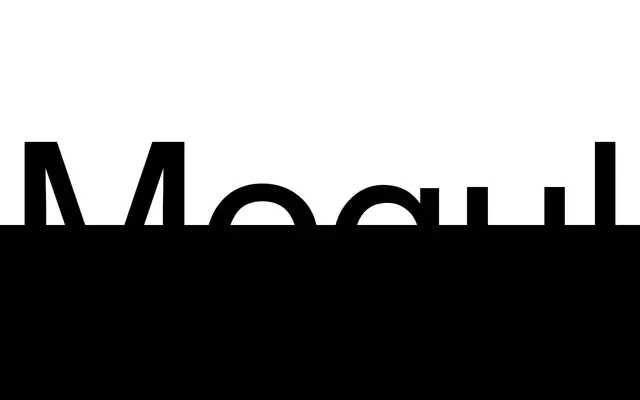
Mogul
A humanist sans-serif by Ondrej Jób, offered in eight weights from Hair to Black and described as a love-letter to Universal Grotesk.
Drawing on the proportions and spirit of Universal Grotesk, Mogul is built around low contrast, a large x-height and natural width across eight styles. The family covers over 100 languages via Basic Latin and Extended Latin, and includes proportional and tabular lining figures, superscript, subscript, fractions and a slashed zero. Three stylistic sets, case-sensitive forms and ordinals offer further typographic control.
The foundry describes Mogul explicitly as a humanist sans-serif with low contrast and large x-height, drawing direct inspiration from Universal Grotesk while maintaining natural proportions.